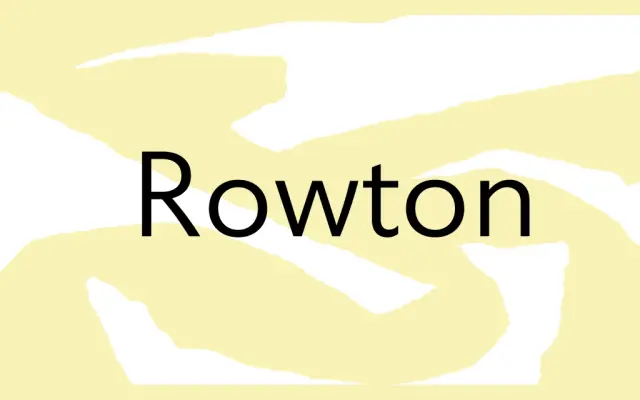
A humanist sans family drawing on the Eric Gill tradition, pairing upright and italic sans weights with seriffed stencil cuts across six weights.
Rowton is organised into three formal categories: upright sans, italic sans and seriffed stencil weights, all sharing the lively character of Gill's humanist approach. Six weights run from Hairline to Black with matching italics, available as static fonts or two variable fonts covering the full weight range. The stencil cuts add a decorative register that extends the family's usefulness across editorial and branding contexts.
Rowton is a humanist sans with roots in the Eric Gill tradition, combining upright sans, italic sans and seriffed stencil weights within one family. Its organic letterforms and expressive italics place it firmly in the humanist sans-serif category.